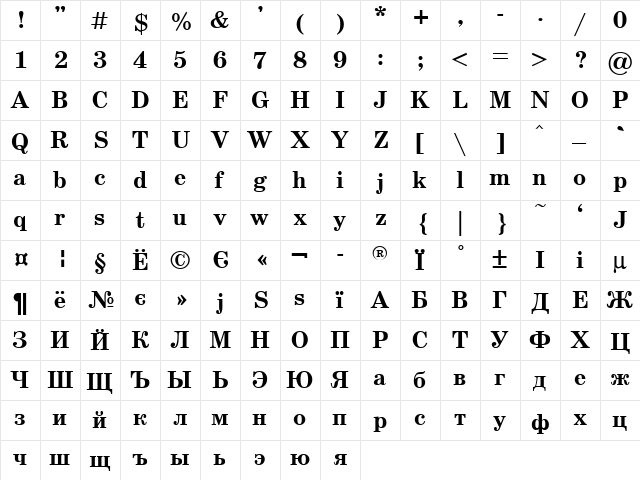
Shkolnaya Bold
Design Context for Shkolnaya Typeface
Shkolnaya offers clean, dependable letterforms without strong stylistic allegiance, making it a practical choice for designers who need flexibility. Its bold stroke weight gives it real presence on the page.